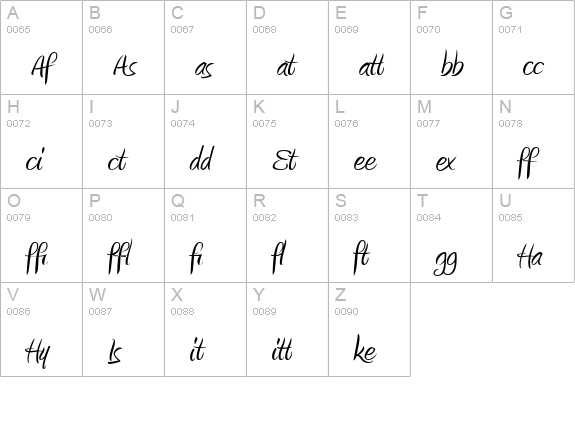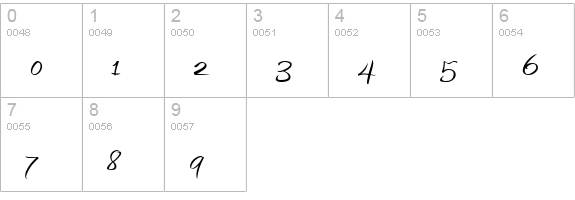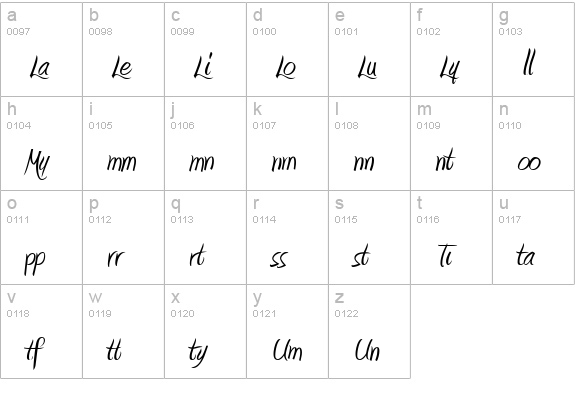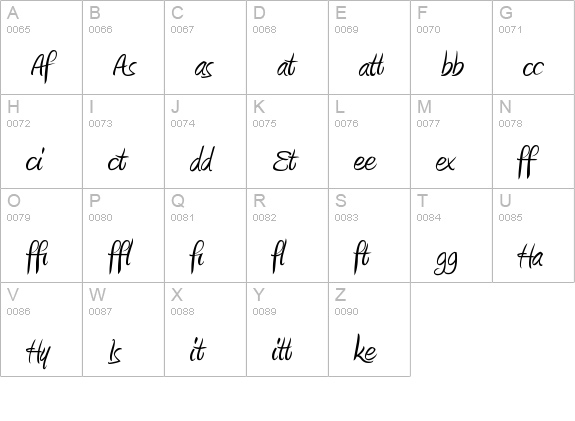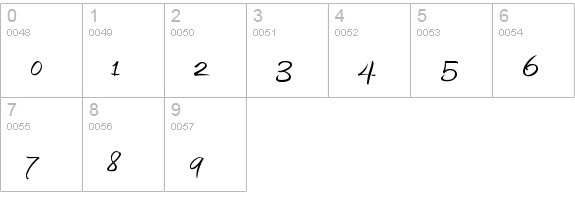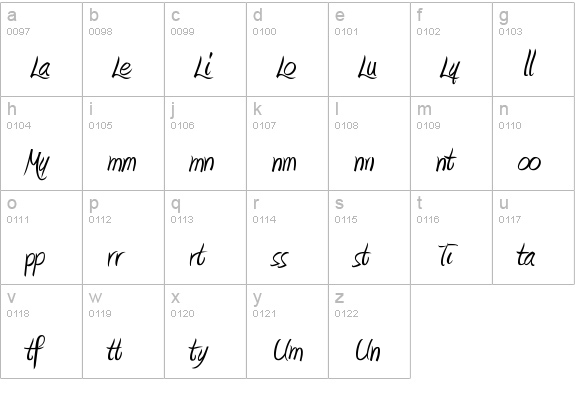
Amienne Ligatures Font Details
Amienne Ligatures is a stunning display font that effortlessly combines elegance and charm. With its unique ligatures and graceful curves, this font is perfect for adding a touch of sophistication to any design project. The fluidity of the letterforms creates a sense of movement and flow, making Amienne Ligatures truly stand out. What sets this font apart is its versatility – whether you're working on a wedding invitation, branding project, or social media graphics, Amienne Ligatures will elevate your design to the next level. Its timeless appeal and modern twist make it a must-have in any designer's toolkit. And the best part? Amienne Ligatures is available for free download at FontsMarket.com. So go ahead and add this exquisite font to your collection today and watch your designs come to life with a touch of elegance and sophistication.